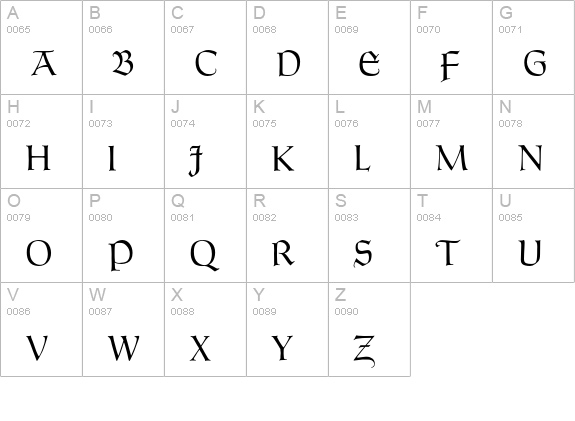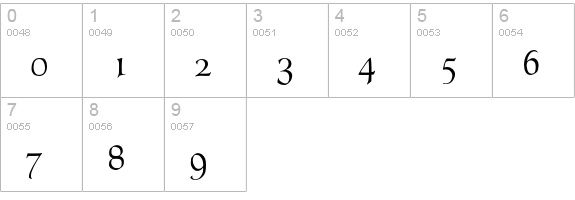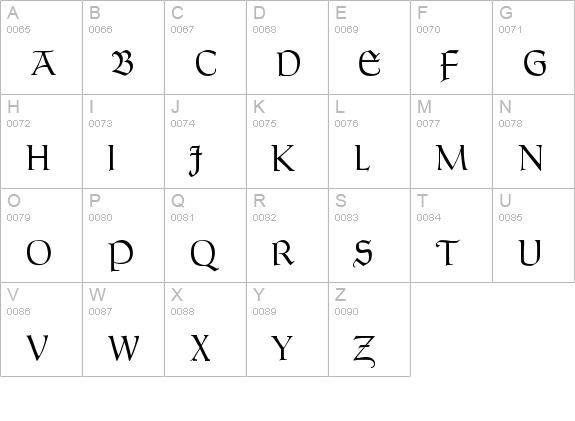
GoudyThirtyHW Font Details
GoudyThirtyHW is a timeless and elegant serif font that exudes sophistication and class. Its classic letterforms and subtle vintage charm make it perfect for a wide range of design projects, from invitations and wedding stationery to branding and packaging. The intricate details and graceful curves of GoudyThirtyHW add a touch of refinement to any design, making it a versatile choice for both print and digital applications. Best of all, GoudyThirtyHW is available for free download at FontsMarket.com. Whether you're a seasoned designer looking to add a new font to your collection or a beginner searching for the perfect typeface for your next project, GoudyThirtyHW offers the perfect combination of style and accessibility. Download GoudyThirtyHW today and elevate your designs with its timeless beauty and classic appeal.